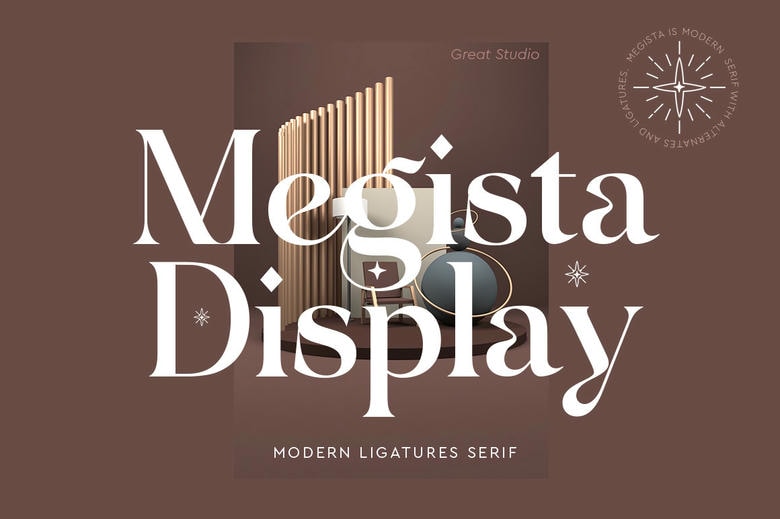
Megista Display Font
Megista Display is a stylish and distinct serif font. It is PUA encoded which means you can access all of the glyphs and swashes with ease! Add it confidently to your projects, and you will love the results.
Megista Display Serif Font